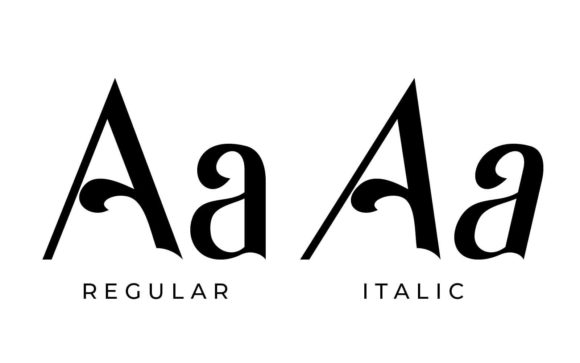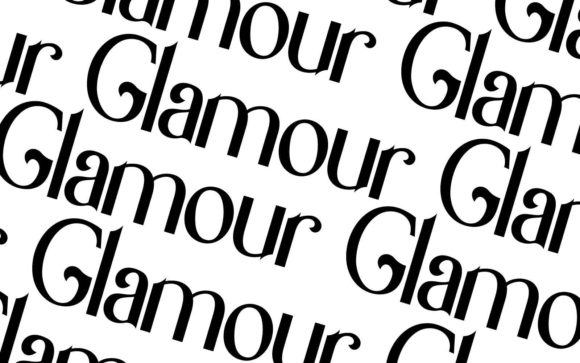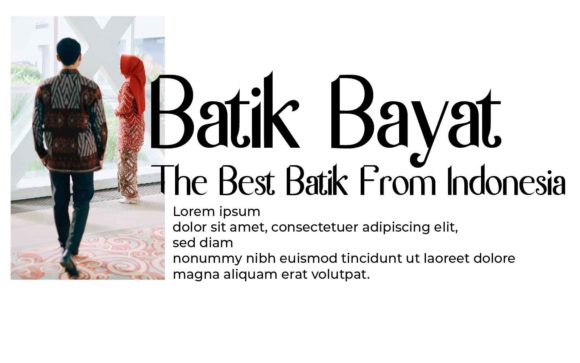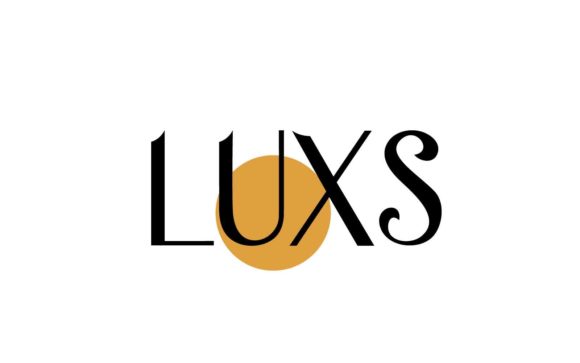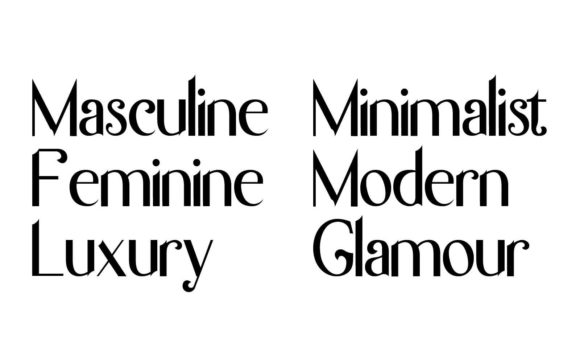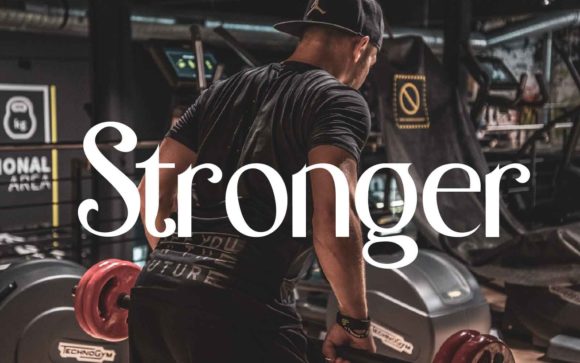
Gaftora Font: Elevate Your Designs with Elegance and Sophistication
In the world of typography, fonts play a crucial role in conveying the tone and personality of a design. For designers and crafters seeking to add a touch of luxury and sophistication to their projects, the Gaftora Font is an excellent choice. This elegant and unique serif font is designed to make a statement, and its distinct style is sure to captivate audiences.
The Beauty of Gaftora Font
Gaftora is an elegant and unique serif font that boasts a distinctive style, setting it apart from more traditional fonts. Its serif characteristics add a level of sophistication and refinement, making it perfect for designs that require a touch of luxury. Whether you’re working on a branding project, packaging design, or digital content, Gaftora Font is sure to elevate your work.
Key Features of Gaftora Font
- Elegant Serif Design: Gaftora’s serif design adds a touch of elegance and sophistication to any project.
- Unique Style: Its distinctive style sets it apart from more traditional fonts, making it perfect for designers seeking to create something unique.
- Luxury Appeal: Gaftora Font is designed to add a touch of luxury to any design project, making it perfect for high-end branding and packaging designs.
- Versatility: This font is versatile and can be used in a variety of design projects, from digital content to print materials.
Why Choose Gaftora Font?
For designers and crafters seeking to create spectacular designs, Gaftora Font is an excellent choice. Here are just a few reasons why:
- Adds a Touch of Luxury: Gaftora Font is designed to add a touch of luxury and sophistication to any design project.
- Easy to Read: Despite its elegant design, Gaftora Font is easy to read, making it perfect for body text and headings.
- Unique and Memorable: Its distinctive style makes it easy to create memorable and impactful designs.
- Supports Multiple Languages: Gaftora Font supports multiple languages, making it a great choice for designers working on international projects.
Using Gaftora Font in Your Designs
Using Gaftora Font in your designs is easy. Here are a few tips to get you started:
- Pair it with a Sans-Serif Font: Pair Gaftora Font with a sans-serif font to create a striking contrast and add visual interest to your design.
- Use it for Headings and Titles: Gaftora Font is perfect for headings and titles, where its elegant design can make a big impact.
- Experiment with Font Sizes: Experiment with different font sizes to create a hierarchy of information and add depth to your design.
In conclusion, the Gaftora Font is an excellent choice for designers and crafters seeking to add a touch of luxury and sophistication to their designs. Its elegant and unique serif design makes it perfect for a variety of design projects, from branding and packaging to digital content and print materials. With its ease of use, versatility, and distinctive style, Gaftora Font is sure to elevate your designs and leave a lasting impression on your audience.
Get Ready to Fall in Love with Gaftora Font
Fall in love with the distinct style of Gaftora Font and use it to create spectacular designs that showcase your creativity and skill. Whether you’re a seasoned designer or just starting out, Gaftora Font is a great addition to your font library. So why wait? Discover the beauty of Gaftora Font and take your designs to the next level!